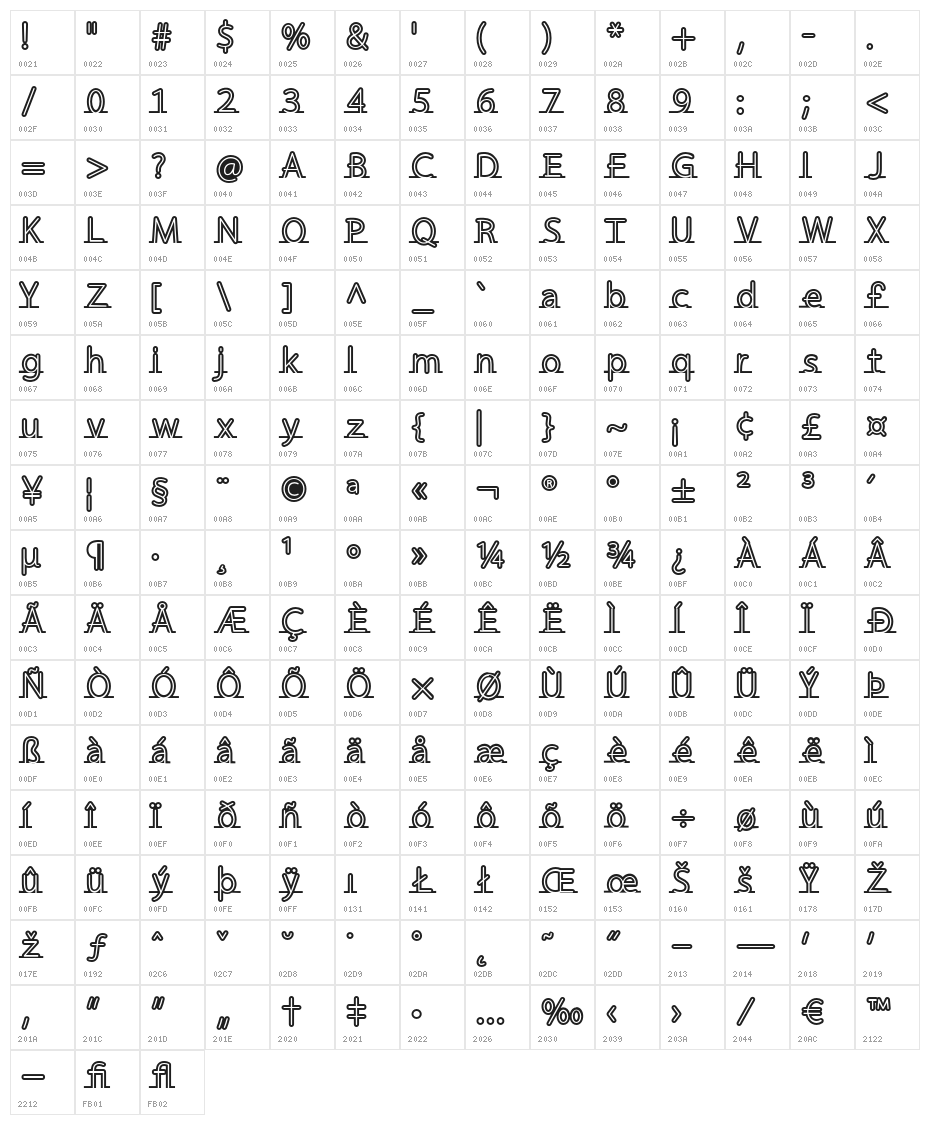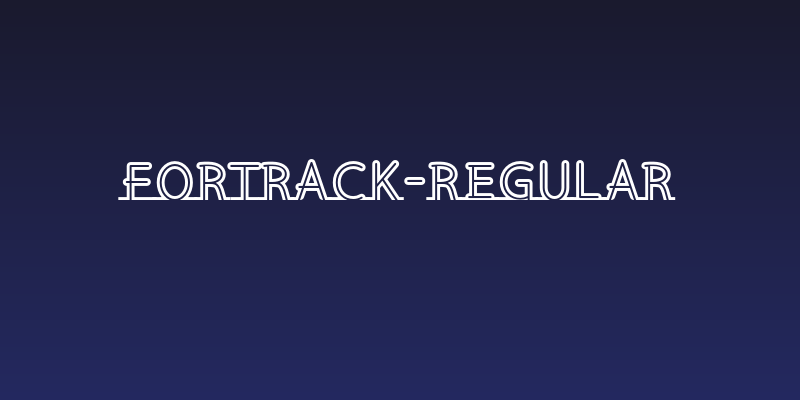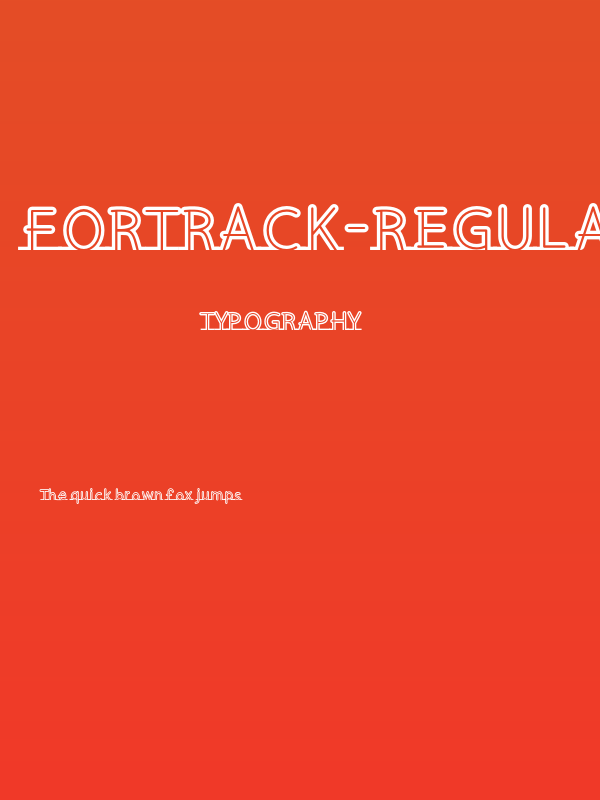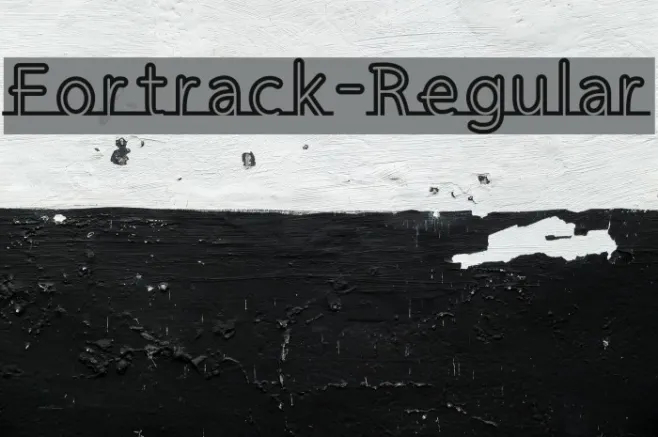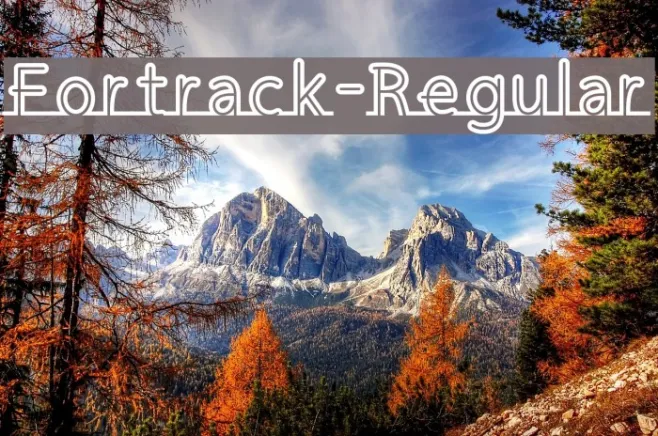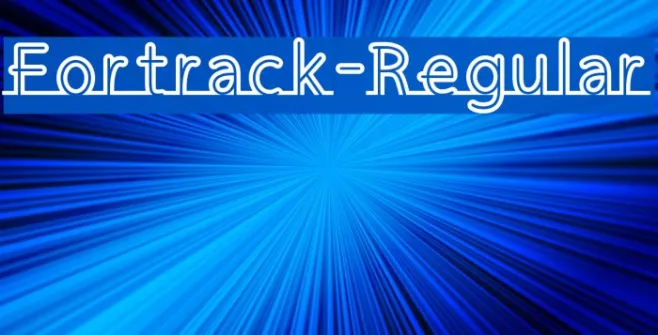
Fortrack-Regular Font
Fortrack-Regular Description
This font features a modern, outlined style with clean, geometric lines. Each character is crafted with a consistent stroke width, creating a cohesive and structured appearance. The uppercase and lowercase letters maintain a uniform height, enhancing readability while adding a contemporary flair. The numerals and special characters are designed to match the overall aesthetic, ensuring versatility across various applications. The font's open and airy design makes it suitable for both digital and print media, providing a fresh and engaging visual experience.
| Proposed Projects | Ideal for branding, posters, headlines, and digital media where a modern and clean look is desired. |